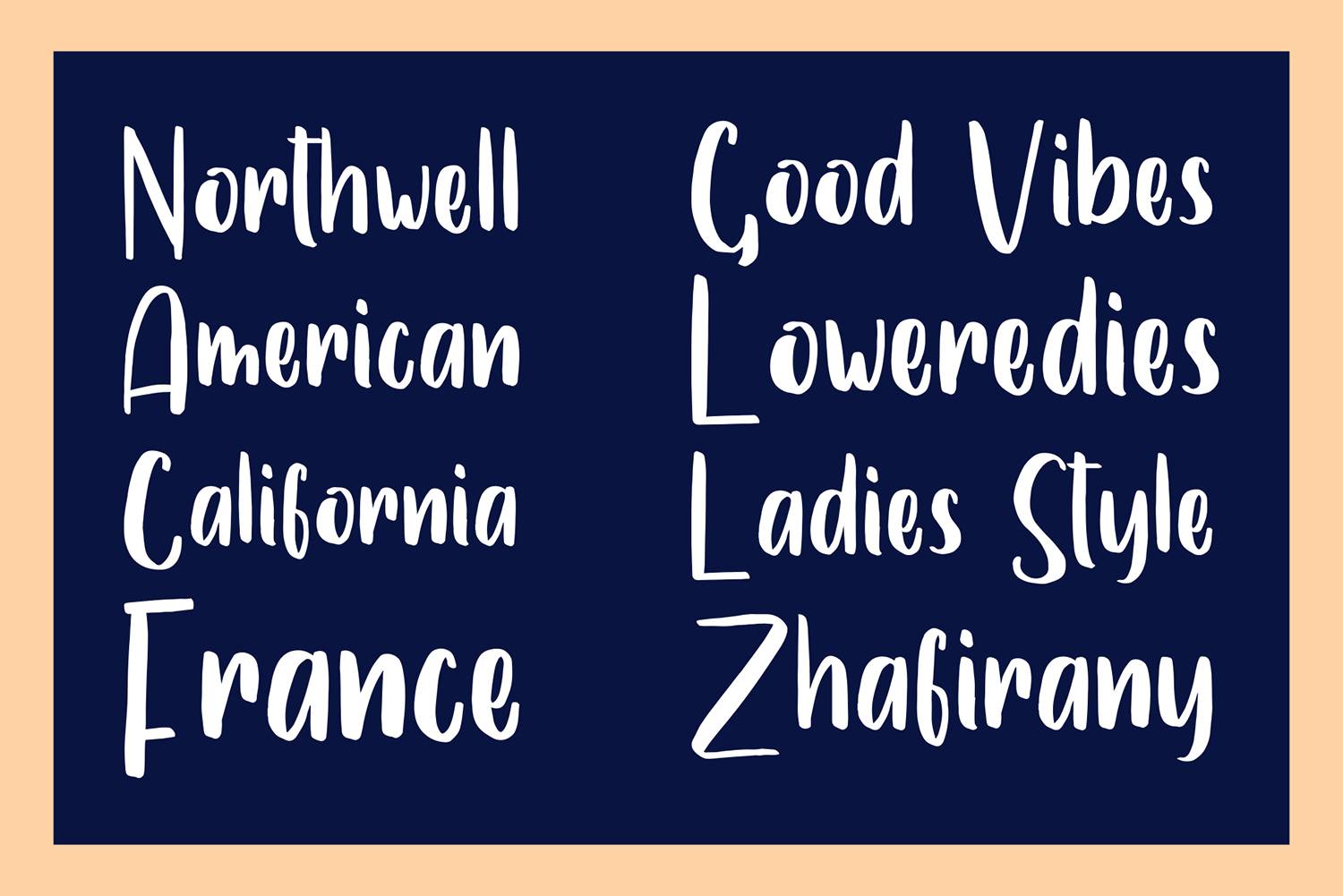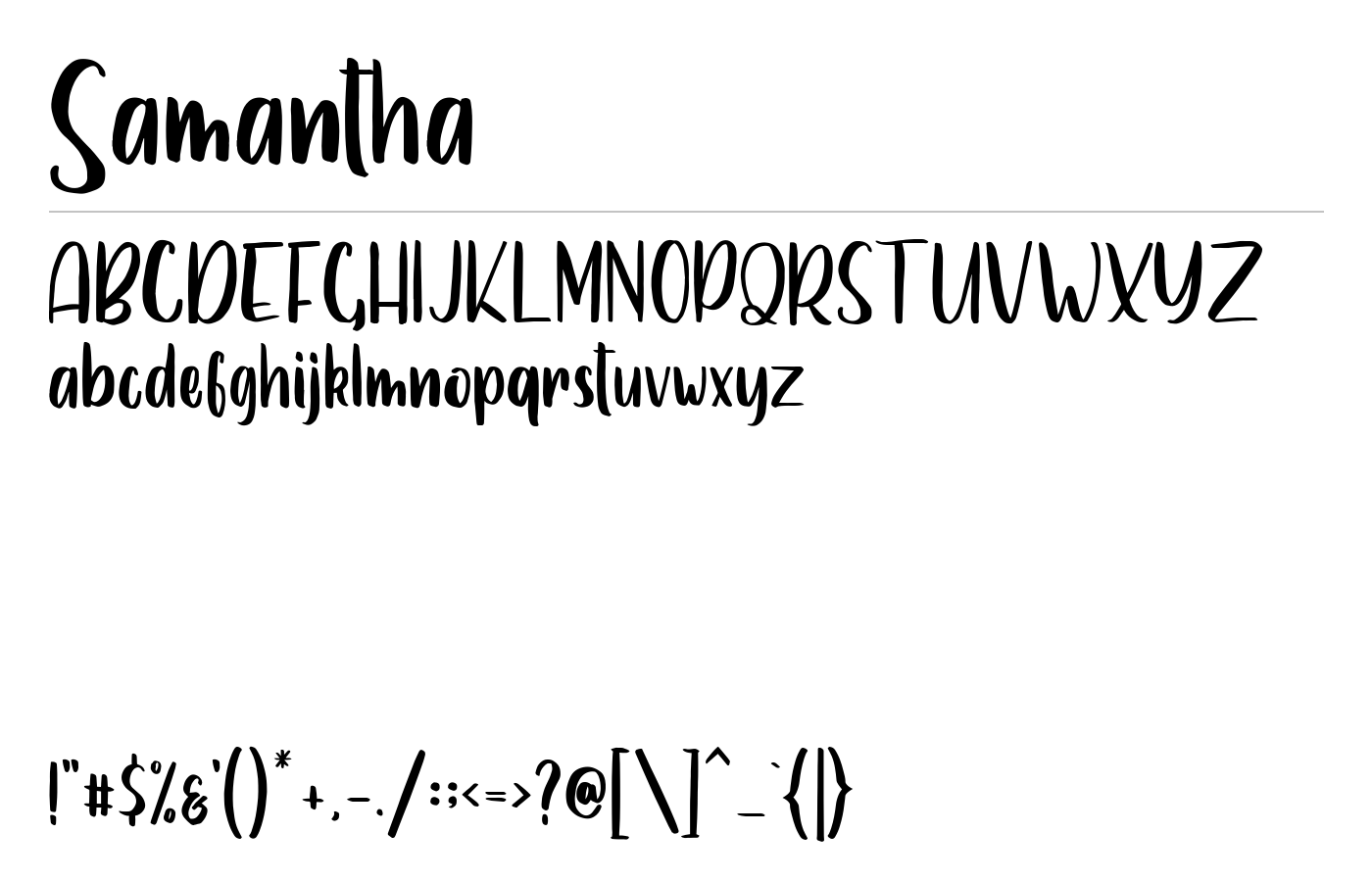
Samantha is a lively and casual handwritten sans serif font featuring tall, narrow letterforms with a playful, slightly uneven stroke that feels personal and approachable. Its friendly style combines a clear readability with a touch of charm, making it ideal for creative projects, informal branding, and joyful headlines. Perfect for adding a warm, human touch to invitations, social media graphics, or lifestyle websites.
Samantha Font
About Samantha Font
| Font family | Samantha Font |
| Release date | 2019-01-05 |
| Designer | Good Java |